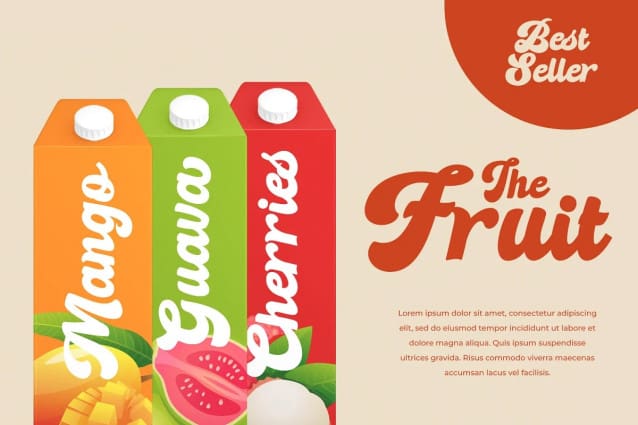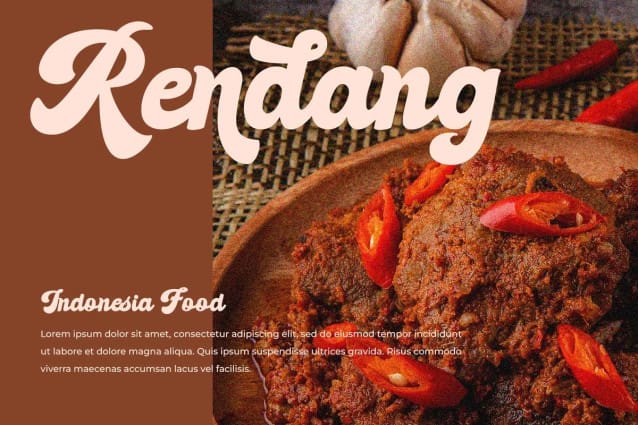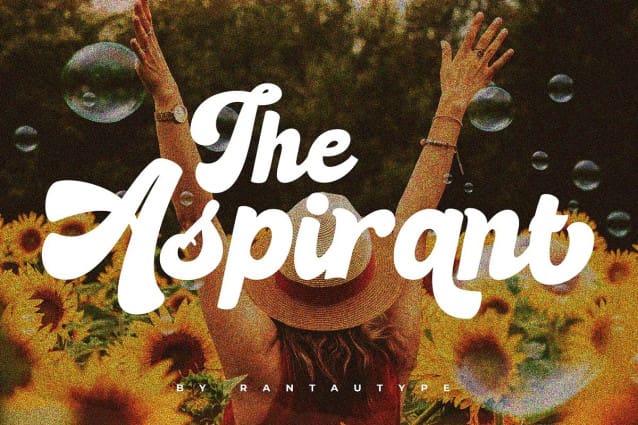
Aspirant Retro Font
Aspirant Retro Font, fits perfectly into those nostalgic moodboards and vintage logos. It come with a unique lower and uppercase plus numbers and punctional. Aspirant also have more alternate and ligature so you can get creative with more optional.
Aspirant Retro can use in choice for watermark on photography, quotes, album cover, magazine, business card and many other design project. Aspirant here to make your work to high level!!!